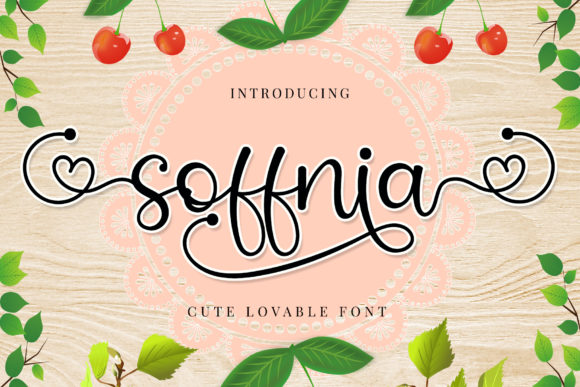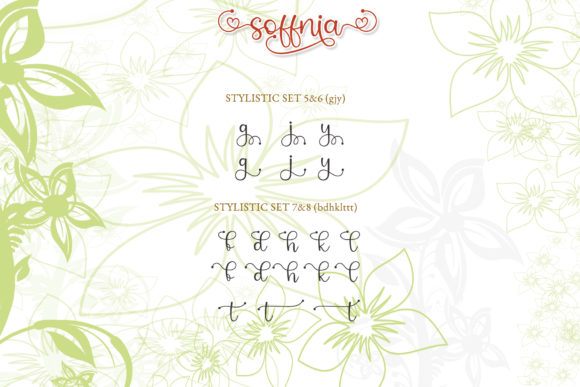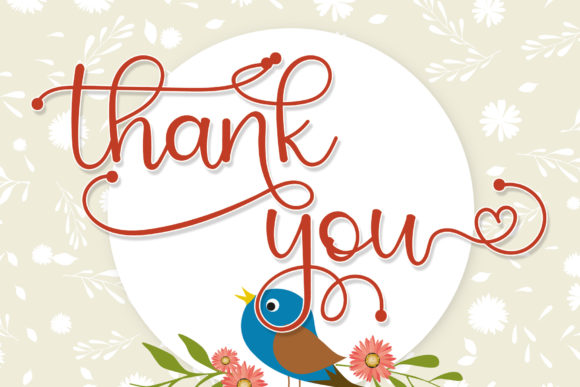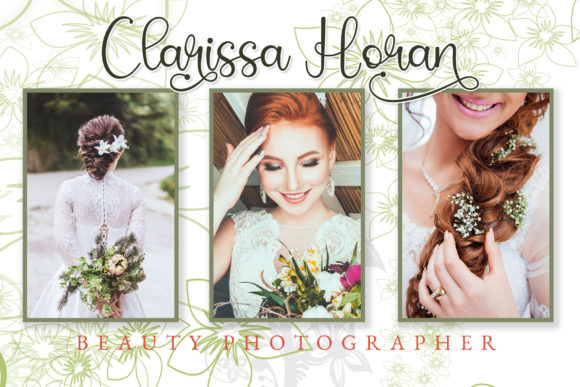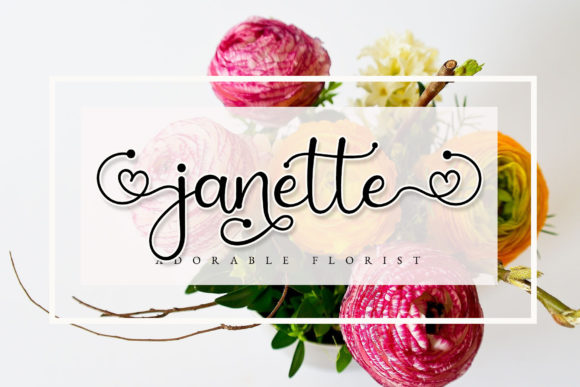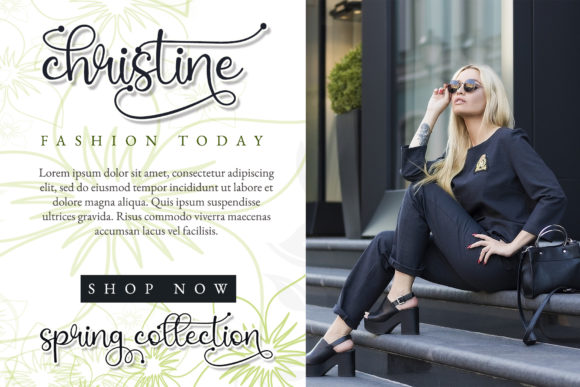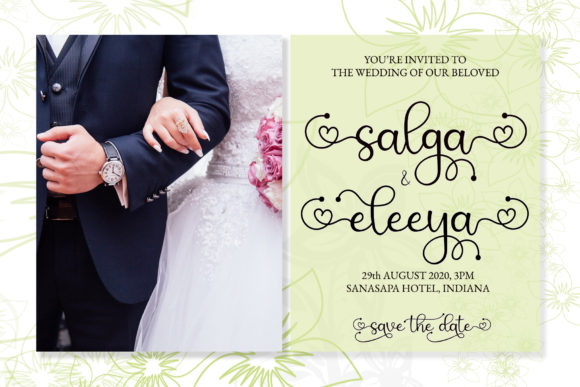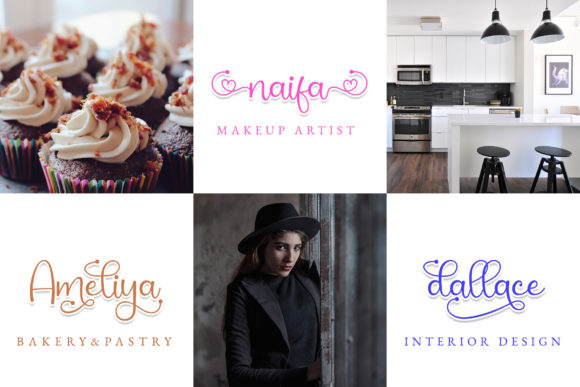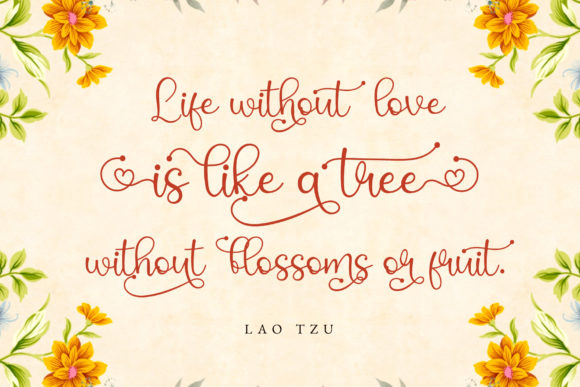
Soffnia Font
About Soffnia Font
Soffnia is cute and adorable script font. Its love-themed front and back swashes will add a romantic feeling to your next design project.